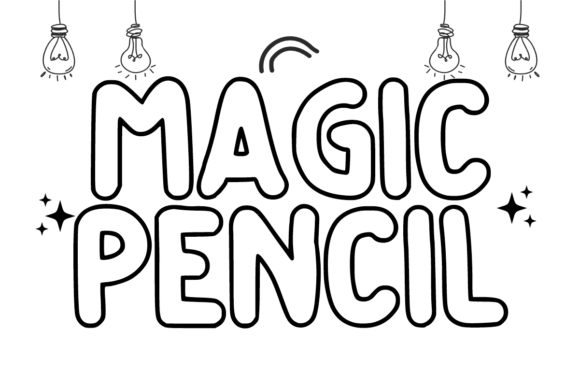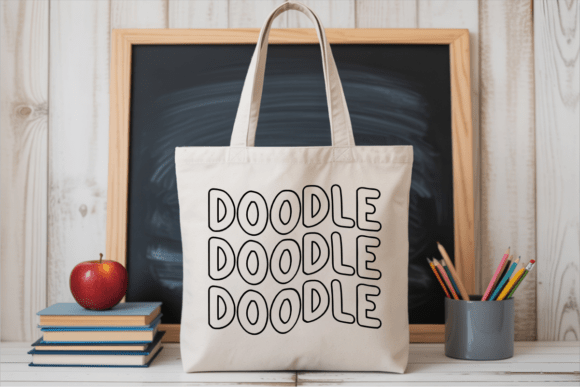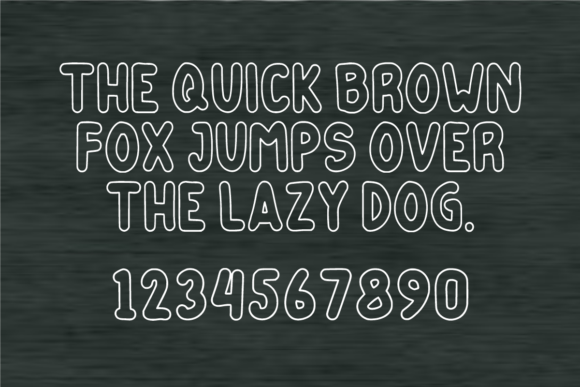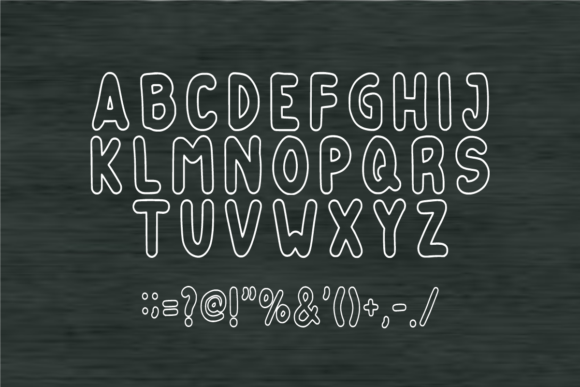
Introduction to Snow Cartoon Font Font
Fonts play a crucial role in design, and the Snow Cartoon Font font is a typeface that brings both character and versatility to any project. Whether you’re working on a branding project, a website, or a print design, the Snow Cartoon Font font offers a unique style that can elevate your work.
Welcome a cozy, playful atmosphere with Snow Cartoon, a charming outline font designed with children and winter themes in mind.
The bubbly, rounded letters feature a clean outline that makes them perfect for coloring activities, fun classroom decor, winter-themed event promotions, and festive craft projects Its simple, lighthearted style and easy readability ensure it works beautifully for book titles, holiday greetings, and anywhere you need a sweet, innocent, and distinctly cartoonish flair.
Key Features of Snow Cartoon Font Font
Why Choose Snow Cartoon Font Font?
The Snow Cartoon Font font is more than just a typeface – it’s a design tool that helps you communicate your message with style and clarity. Its unique character set and versatile design make it suitable for a wide range of applications, from elegant invitations to bold headlines.
With its carefully crafted letterforms and balanced proportions, the Snow Cartoon Font font ensures readability and visual appeal across all mediums.
What makes Snow Cartoon Font font special?
The Snow Cartoon Font font stands out with its unique design, exceptional readability, and versatility across various design applications.